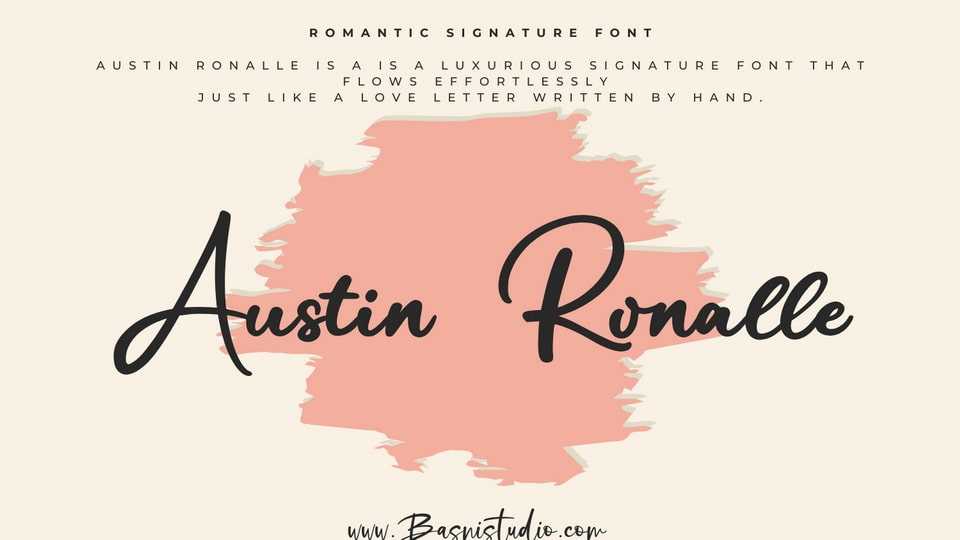
Download Austin Ronalle font, a luxurious signature typeface that flows effortlessly, just like a love letter written by hand, inspired by real pen strokes for a natural elegance.